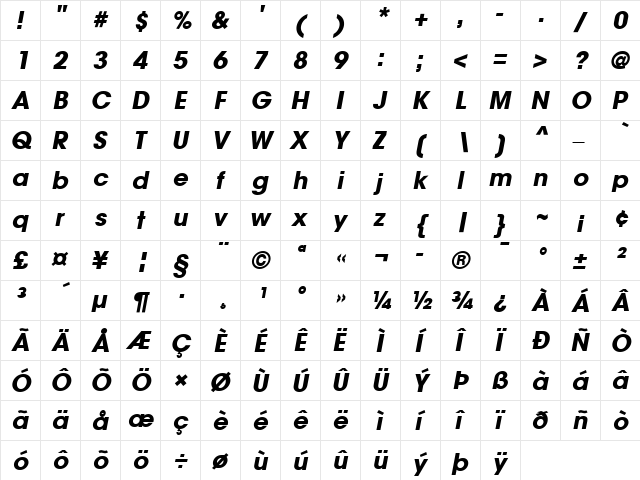
AvantGarde LT Medium Bold Italic
Design Context for AvantGarde LT Medium Typeface
AvantGarde LT Medium offers clean, dependable letterforms without strong stylistic allegiance, making it a practical choice for designers who need flexibility. Its italic angle brings a sense of urgency and motion to the letterforms. Its bold stroke weight gives it real presence on the page.
Pro Tip: Use AvantGarde LT Medium for emphasis, pull quotes, and subheadings where its slanted energy can add rhythm to the layout.